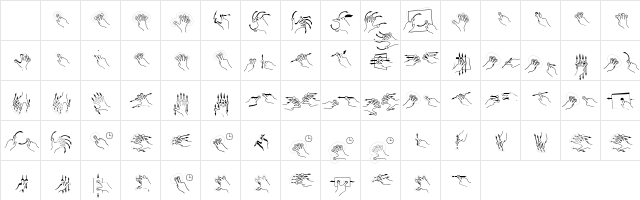
Gesture Glyphs Free Font
Gesture Glyphs
Style: Glyphs
Foundry: GestureWorks
Designer: GestureWorks
Design Context for Gesture
Gesture is a composed and adaptable typeface that performs quietly and consistently across a wide range of design contexts.